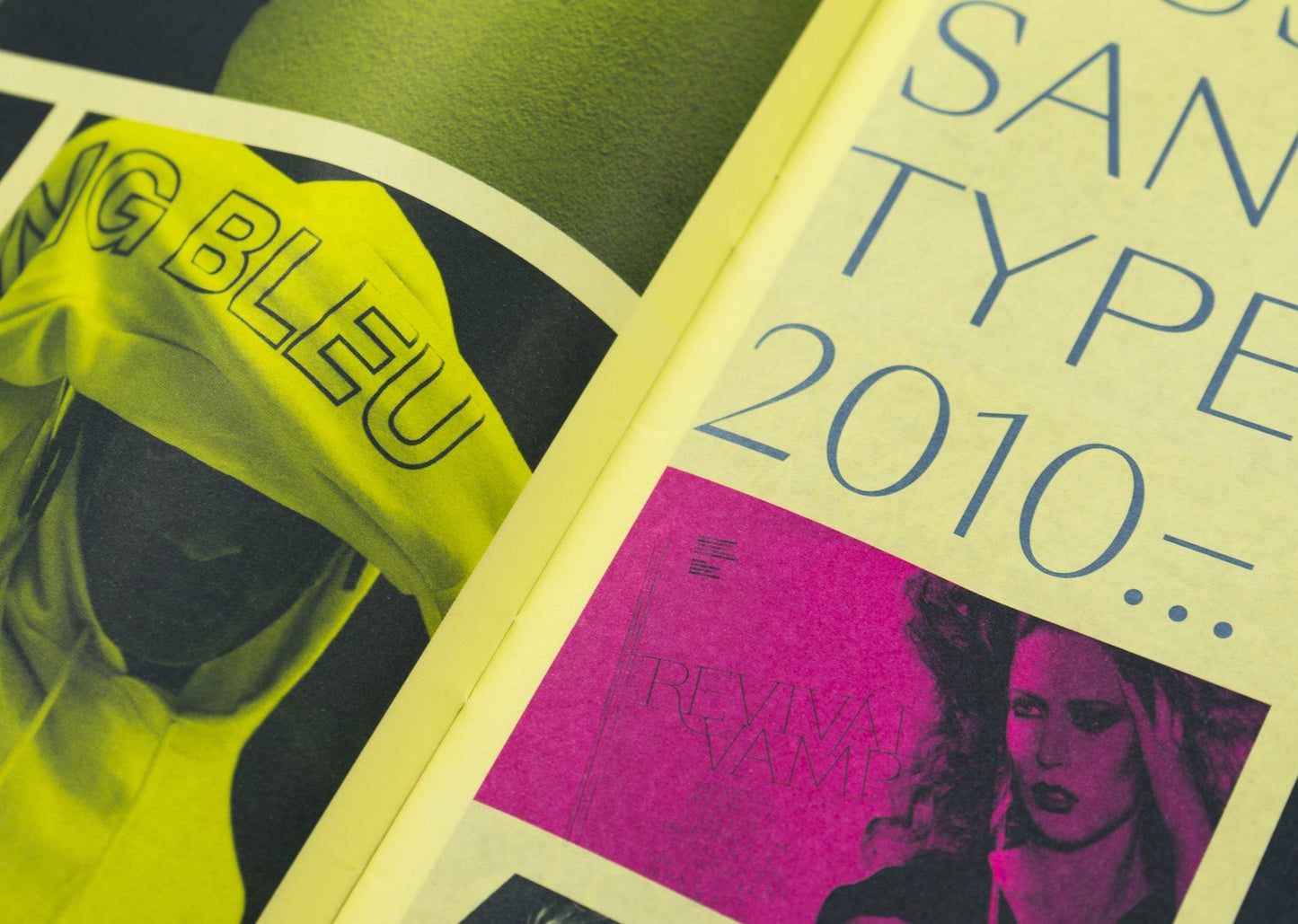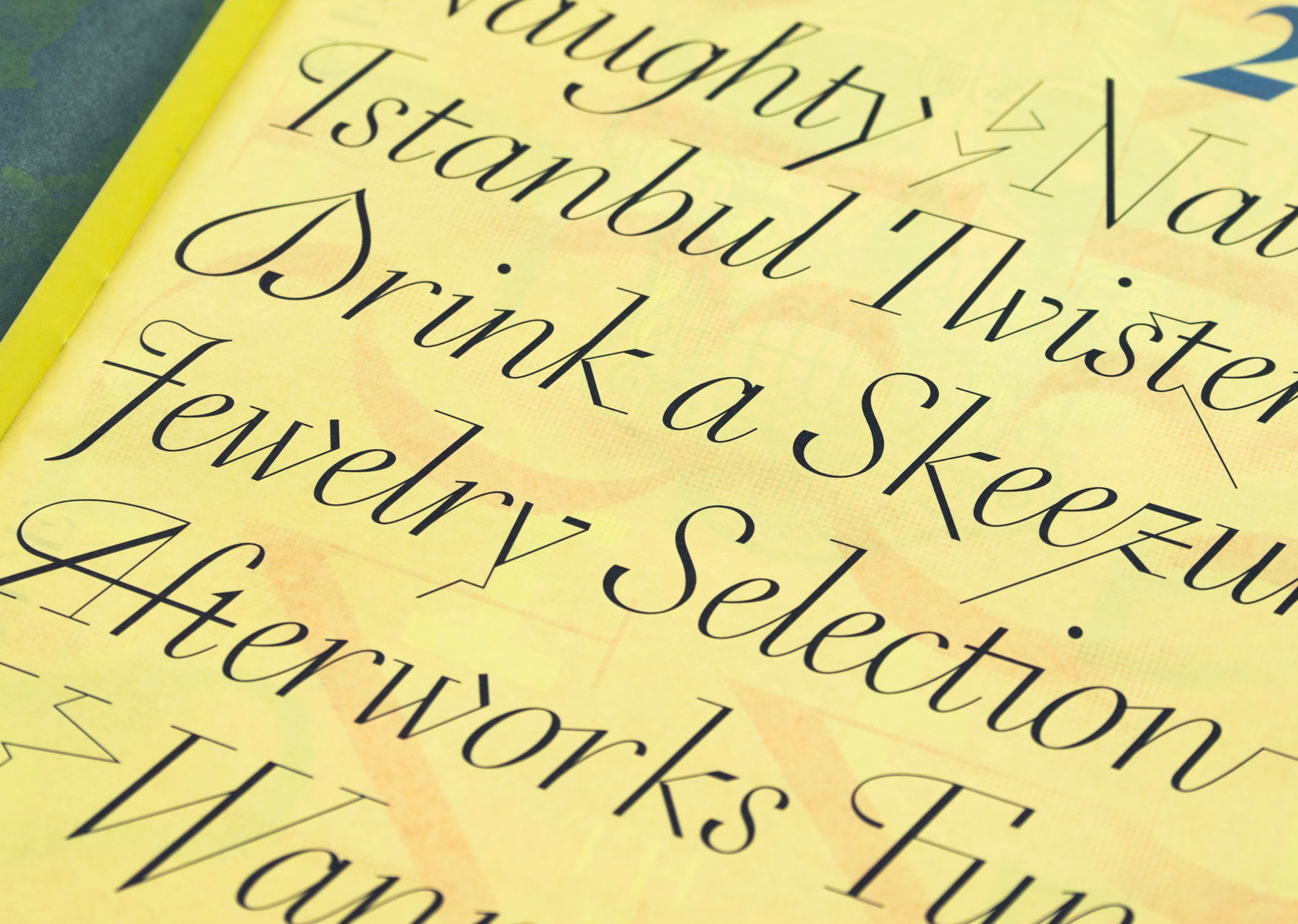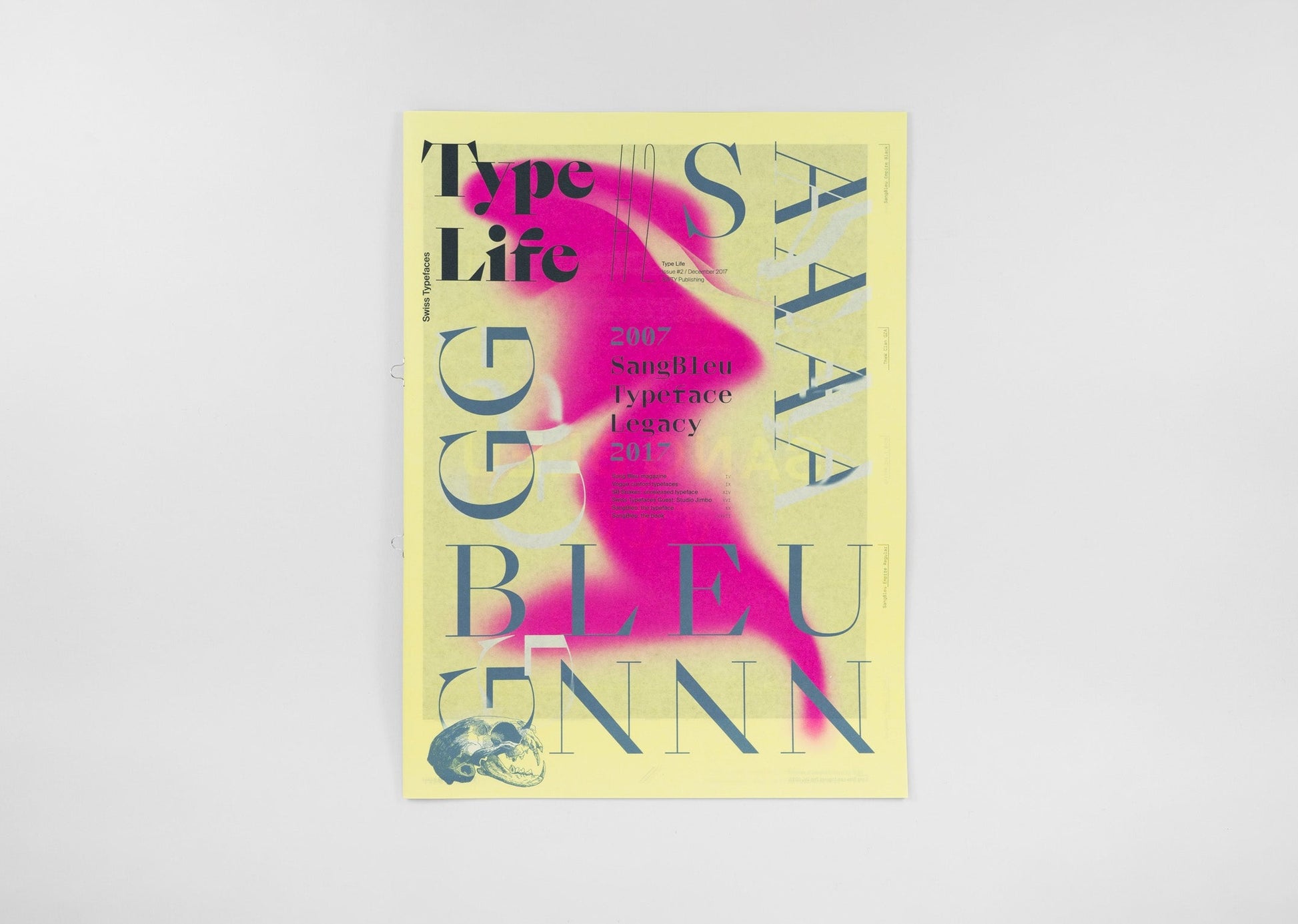
Type Life Issue #2 – SangBleu Typeface Legacy 2007-2017
Type Life is a series of printed publications about design, typography and lifestyle by Swiss Typefaces. Type Life is a celebration of style and a wellspring of inspiration. Instead of long texts, there are lots of images, including photography, illustration, lettering, and exclusive previews of upcoming typefaces, forming a highly visual experience.
The second issue of Type Life brings a cornucopia of visual inspiration. Swiss Typefaces presents insights into their cosmos of style, fonts, and fashion. This is the only place where you’ll find both Rihanna and Rudolf Koch, and where photos of contemporary art and streetwear are framed by engravings from the Caslon foundry. Type Life doesn’t make many words, and instead shows plenty of letterforms. Printed in six Pantone colors, it features mirrored words, slanted letters, gradients and all the other things your design prof wouldn’t approve of.
Each issue is devoted to one chosen theme, and is made in collaboration with guest artists, illustrators, and designers. For this issue, it’s Studio Jimbo from Paris.
Concept, art direction, design, fonts, lettering, photography and texts: Swiss Typefaces
TL#2 guest, handmade lettering and illustrations: Studio Jimbo